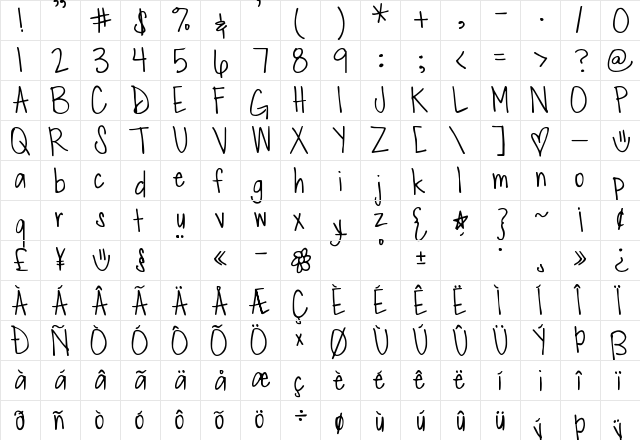
DJB Merry Regular
Design Context for DJB Merry Typeface
DJB Merry is a composed and adaptable typeface that performs quietly and consistently across a wide range of design contexts.